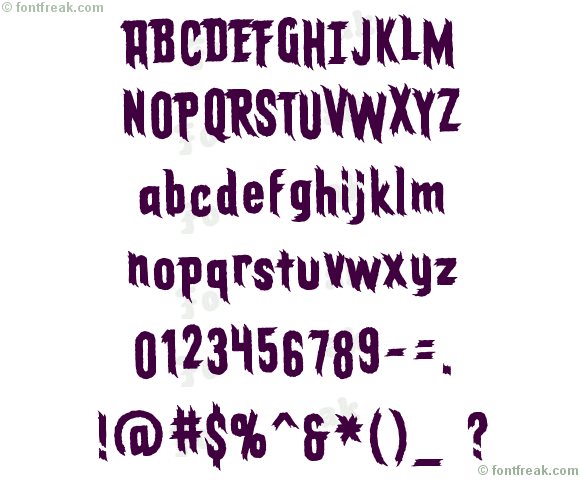
ElderGodsBB
ElderGodsBB-Italic
The Elder Gods font, created by Blambot Fonts, is a striking display typeface that blends a sense of ancient mystique with modern design sensibilities. This font features a unique serif style, characterized by its sharp, angular forms and decorative flourishes that evoke a sense of grandeur and otherworldliness. The stroke weight is notably bold, providing a strong visual presence, while the high contrast between thick and thin lines adds depth and dynamism to the letterforms. The spacing is well-balanced, allowing for readability even at larger sizes, making it ideal for various applications.
Best suited for creative projects, the Elder Gods font is perfect for designing movie posters that call for a dramatic flair, or for crafting captivating book covers that draw in fantasy enthusiasts. It also shines in the realm of merchandise, particularly for gaming brands or comic book artwork, where its distinctive style can enhance the visual storytelling. Additionally, this font can add an air of elegance to event invitations, especially those themed around fantasy or mythical concepts, allowing hosts to set the tone right from the start. Small business owners and content creators looking to add a unique touch to their branding will find this font an excellent choice for logos and promotional materials.